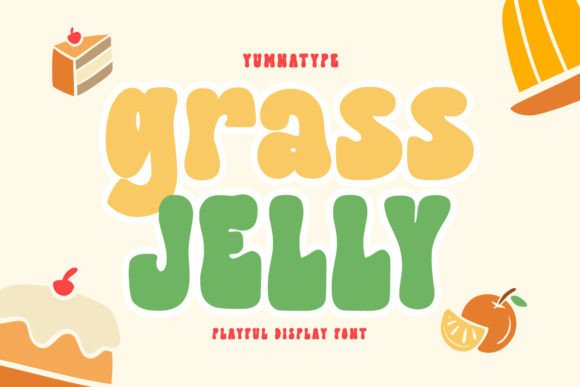
Dive into the realm of typography with Grass Jelly, a display font that's guaranteed to captivate your audience and leave a lasting impact. Its distinctive features will transform your designs into visual masterpieces. Experience the power of Grass Jelly and witness how effortlessly it elevates your projects to new heights of creativity.
Visual Allure:
Grass Jelly's bold and commanding presence captivates attention from the moment your design graces the screen. Its thick, strong contrast lines dance across the page, creating a vibrant rhythm that draws the eye in and holds it spellbound. Use it for headlines, posters, or social media posts and watch as your messages leap off the screen and resonate with your audience.
Artistic Nuances:
With Grass Jelly, artistic expression takes center stage. Its unique, somewhat circled letterforms exude a playful charm that's perfect for injecting personality into your projects. Craft eye-catching logos, engaging brochures, or quirky invitations that reflect your brand's individuality and leave a lasting impression.
Effortless Legibility:
Despite its bold appearance, Grass Jelly maintains an exceptional level of readability. The font's carefully crafted curves and sharp edges ensure that even at large sizes, your text remains crisp, clear, and easy on the eyes. Whether it's a website, a presentation, or a product packaging design, Grass Jelly guarantees effortless communication with your audience.
Embark on a typographic adventure with Grass Jelly and unlock a world of creative possibilities. Its firm, prominent stance and undeniable visual appeal will transform your designs into captivating expressions of art. Embrace the power of Grass Jelly and let your creativity soar.